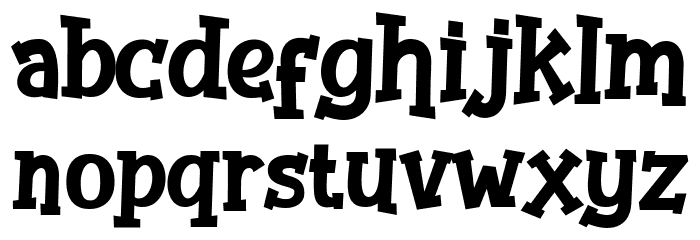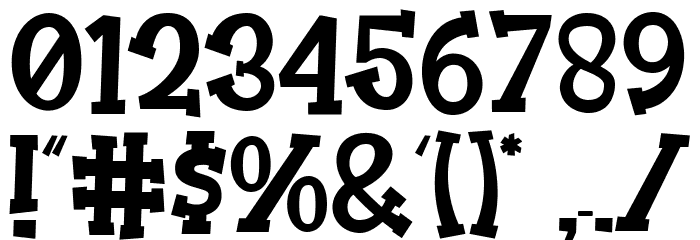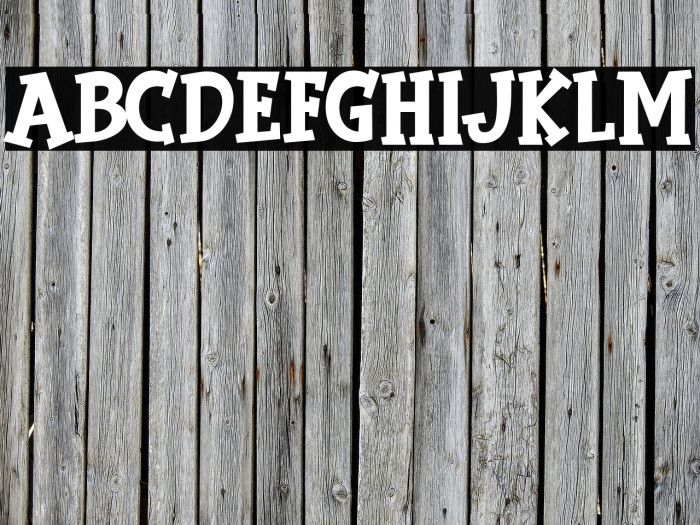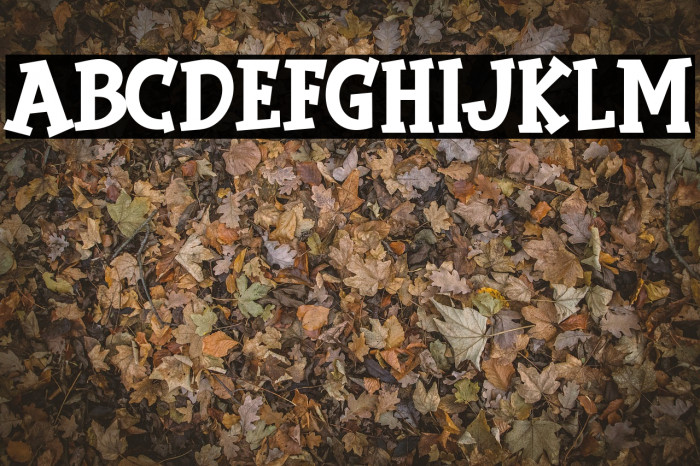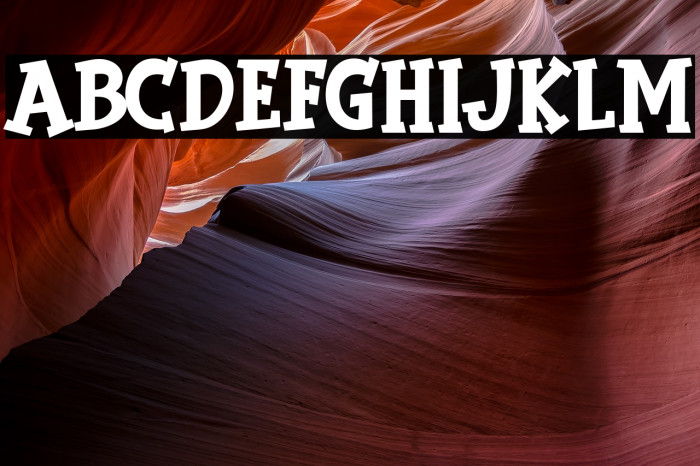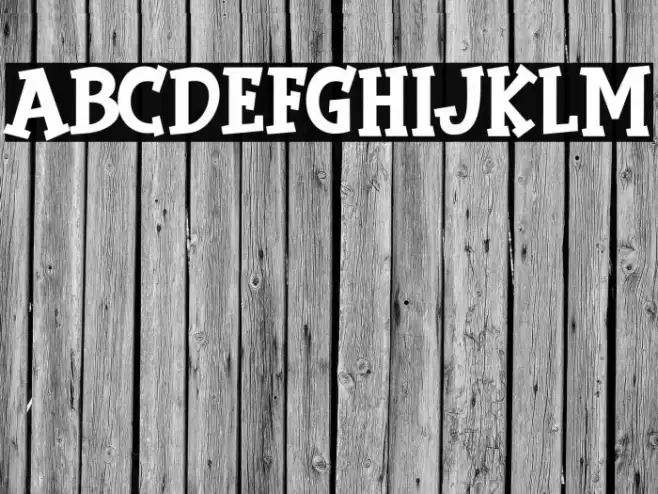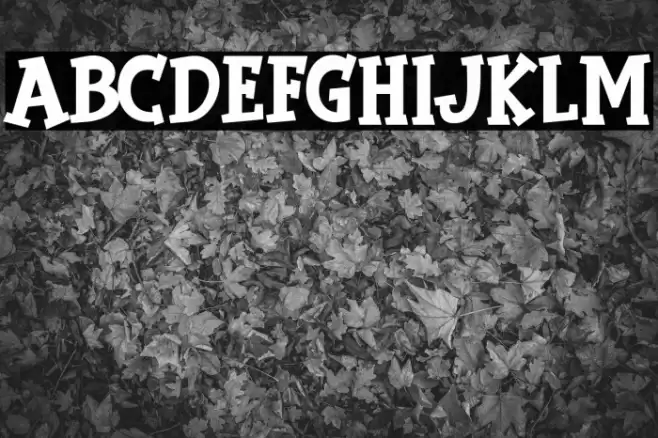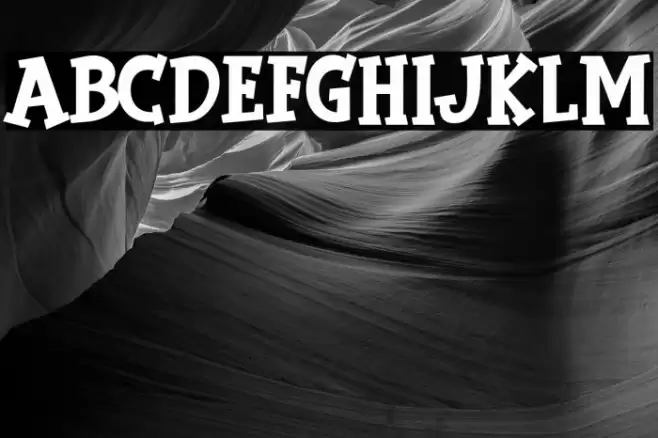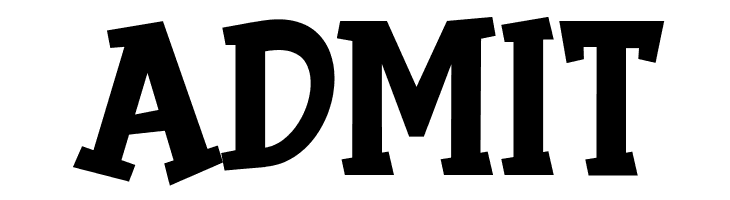
The Bomb Font
This font features a bold and playful design with a distinctively chunky and slightly irregular appearance. The characters have a whimsical, cartoon-like quality, with exaggerated serifs and a lively, dynamic flow. The uppercase letters are robust and commanding, while the lowercase letters maintain a consistent style that complements the uppercase. Numbers and special characters are equally bold, ensuring a cohesive look across all text elements. The font's unique style makes it stand out, adding a touch of fun and creativity to any project.
A bold, playful font with a cartoon-like, exaggerated serif style.
- Proposed Projects: Ideal for children's books, comic strips, playful branding, and eye-catching posters.
- Overall Style: Playful, Cartoonish